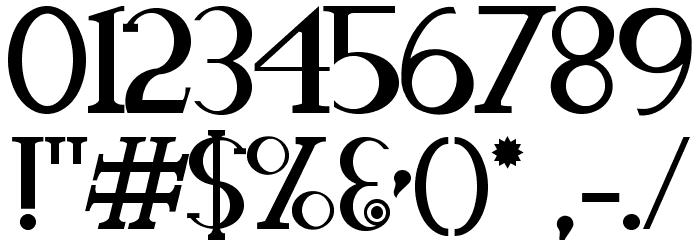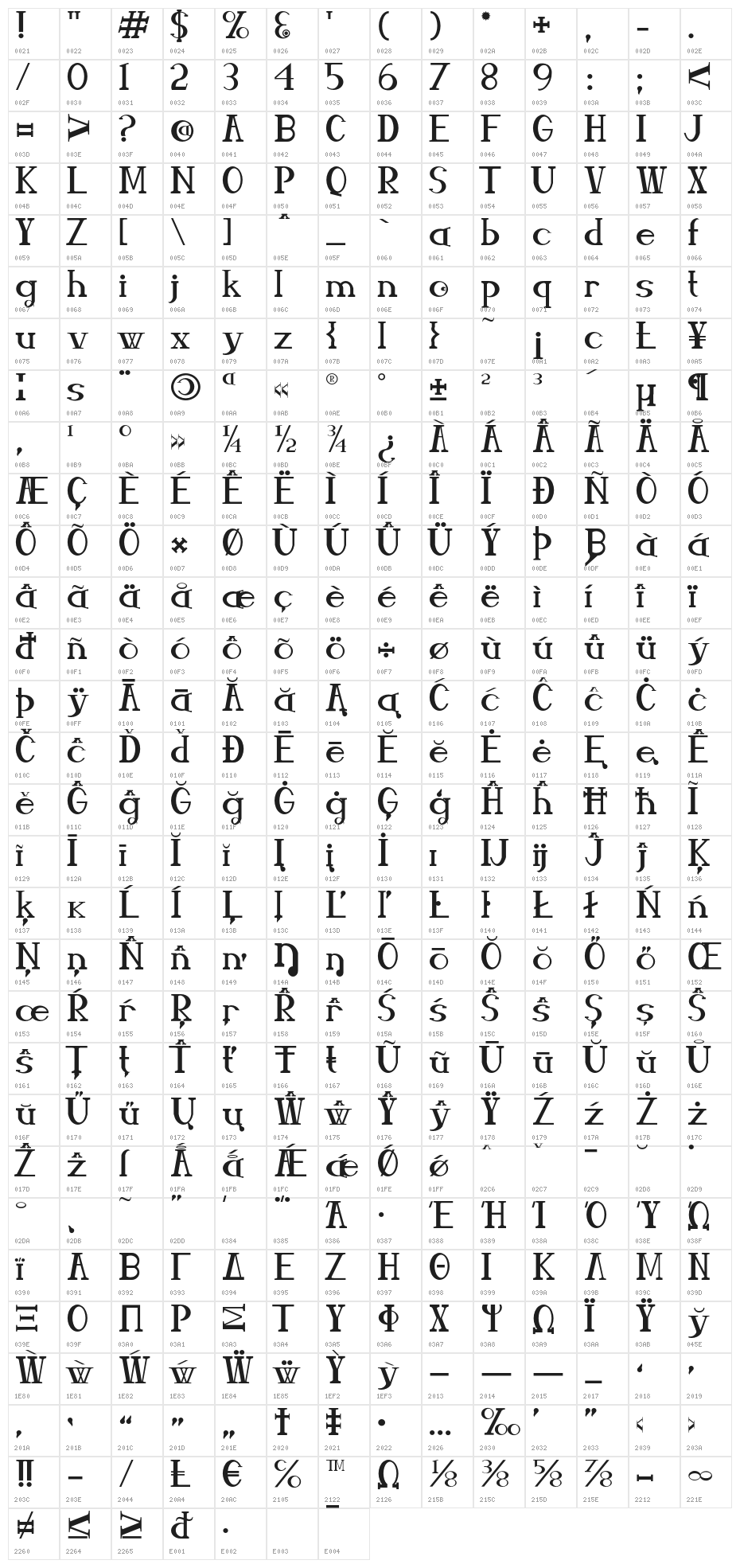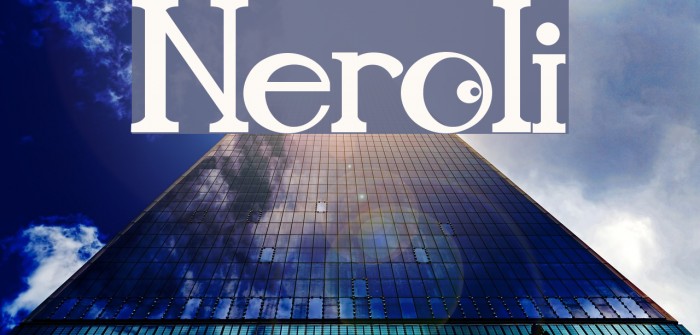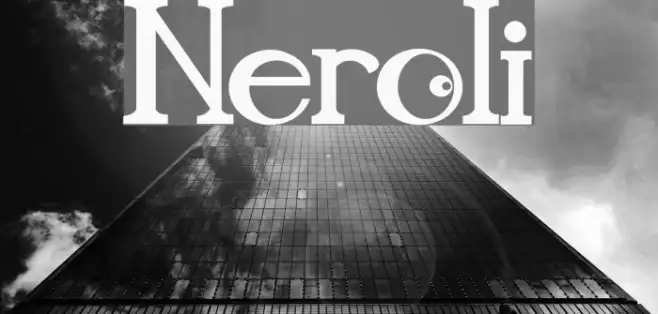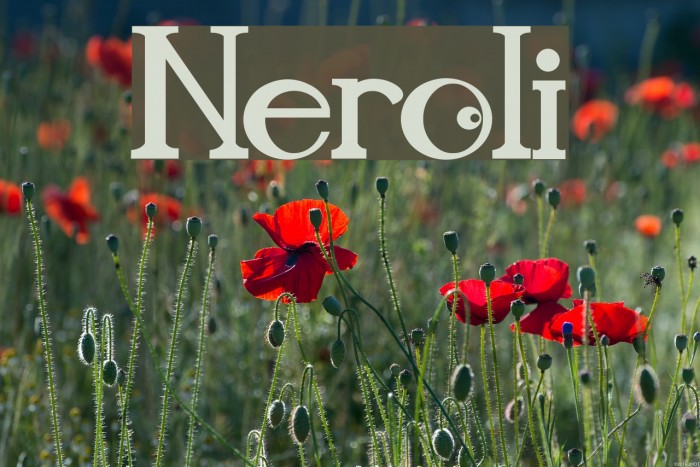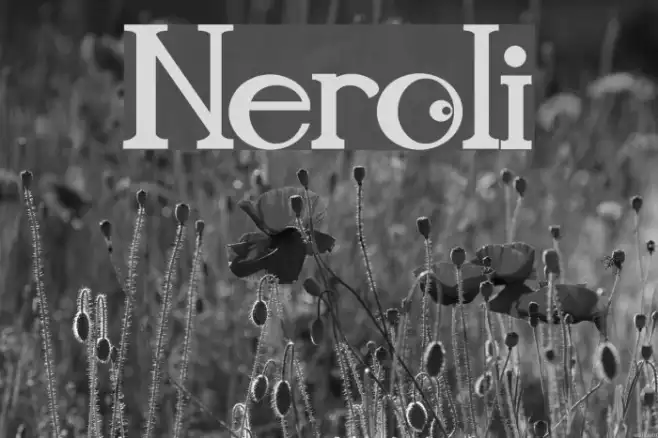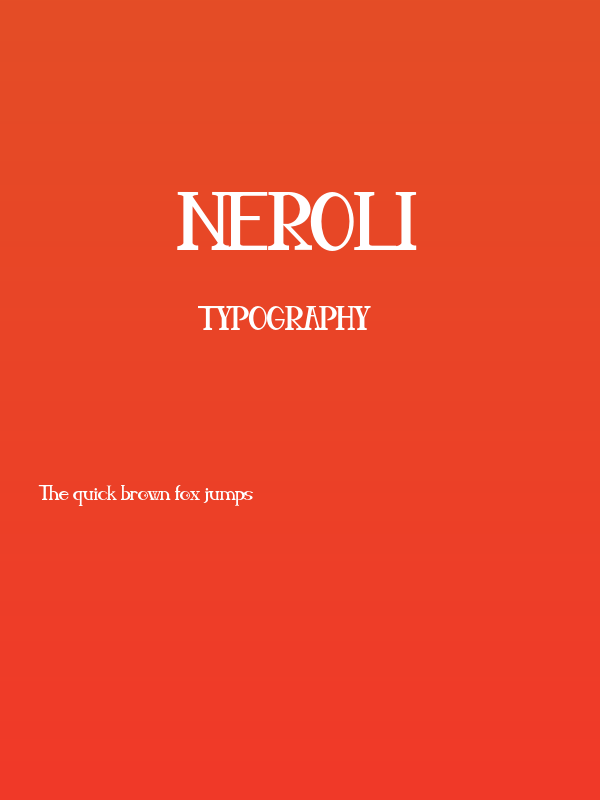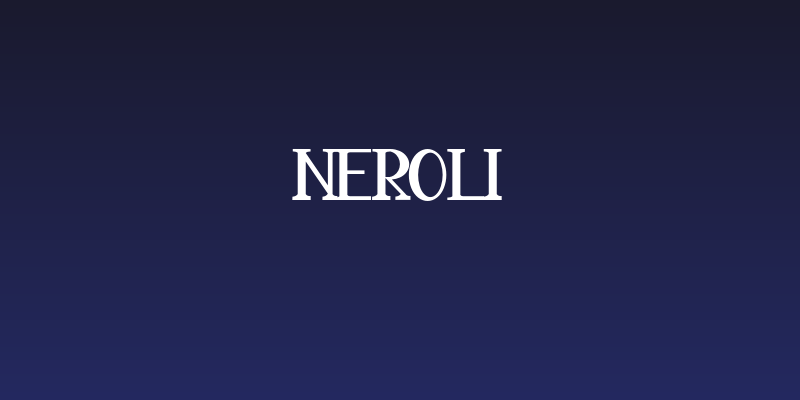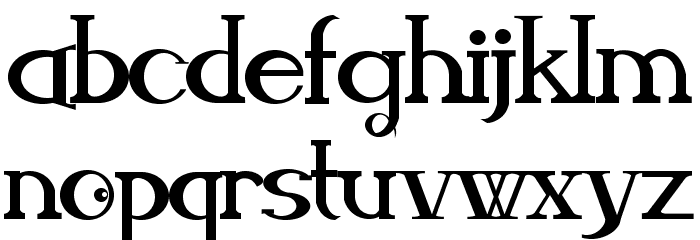
Neroli Font
Neroli Description
This font features a unique blend of modern and vintage styles, characterized by its high contrast between thick and thin strokes. The uppercase letters exhibit a bold, authoritative presence with sharp serifs and distinctive curves, while the lowercase letters maintain a more playful and approachable demeanor. The numerals are elegantly crafted, ensuring readability and style. Special characters are designed with flair, adding a decorative touch to the overall aesthetic. This font's versatility makes it suitable for a wide range of design projects, from branding to editorial design.
| Overall Style | Modern, Vintage |
| Use Case | Headlines, Logos, Editorial design |
| Proposed Projects | Ideal for branding, editorial design, packaging, and advertising projects. |